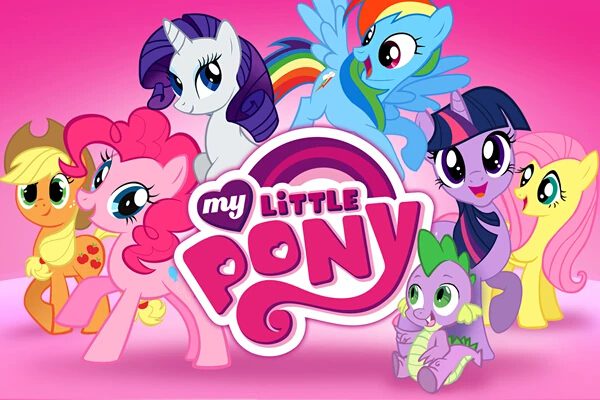
Presenting the My Little Pony font! The typeface that most closely looks like the lettering used in the official My Little Pony logo is a font called PONY MLP. It was designed and created by the font author Kustren and was originally released on 24 June 2013. There are two variants included in this package - the Regular MLP version, and the Magic Is Friendship version.
This lovely font comes with a love-heart flourish in many of the individual character glyphs - just like the original logo lettering. Listed below is a preview image.
Also known by fans as MLP, this animated tv series appeals to young children all over the world. Fans of the show will remember much loved characters such as Twilight Sparkle, Fluttershy, Pinkie Pie, Princess Celestia, Rarity, Applejack, Sweetie Belleand Rainbow Dash. There have been several series in the MLP franchise with the Friendship Is Magic series being one of the most popular. This particular series features teh voices of Tara Strong, Ashleigh Ball, Tabitha St. Germain, Andrea Libman, and Cathy Weseluck. It ran for 9 seasons between 2010 to 2019, and spanned a total of 221 episodes. A related franchise that started in 2013 is Equestria Girls. Following on from this was the comedy series Pony Life which aired on the Discovery Family channel in October of 2017.